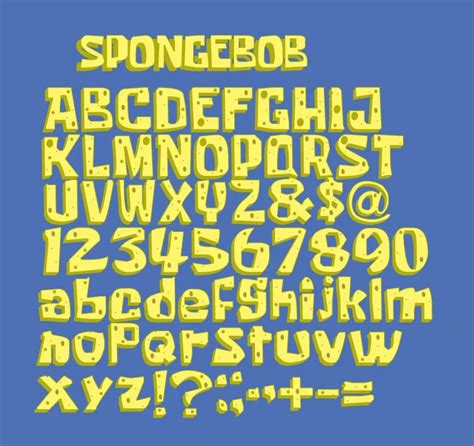
What Is The Spongebob Font Called
What Is The Spongebob Font Called - Spongebob fonts are fan creations of your favorite tv show, spongebob squarepants on nickelodeon. Two fonts were used in the animation series logo, for the “squarepants” part, it is set in las vegas jackpot (with a modified q), which is a.
Spongebob Fonts Are Fan Creations Of Your Favorite Tv Show, Spongebob Squarepants On Nickelodeon.
Two fonts were used in the animation series logo, for the “squarepants” part, it is set in las vegas jackpot (with a modified q), which is a.